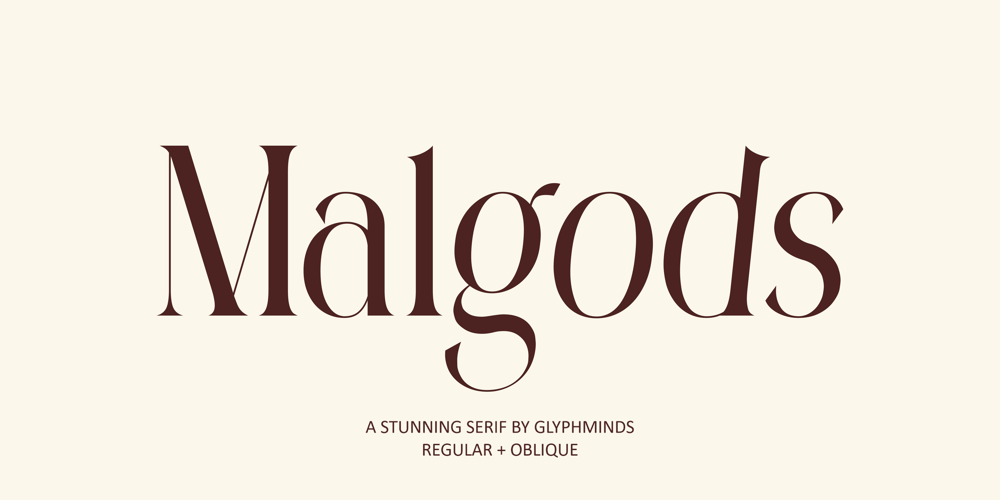
Malgods
Malgods font
Malgods Font Family was designed by Baliya Ibnu Bi Malkan and published by Glyphminds Studios. Malgods contains 2 styles and family package options. Elevate your design projects with Malgods, a stunning serif font that effortlessly blends classic elegance with a modern twist. Perfect for everything from luxurious branding to sophisticated editorial layouts, this typeface is designed to captivate and inspire. With both regular and oblique versions, Malgods offers versatility, allowing you to create unique and striking visuals that stand out. Ideal for designers, creatives, and brands seeking to make a lasting impression, this font brings a touch of timeless beauty to any project. Don’t miss out on adding this refined typeface to your toolkit—let Malgods transform your design work into a masterpiece.